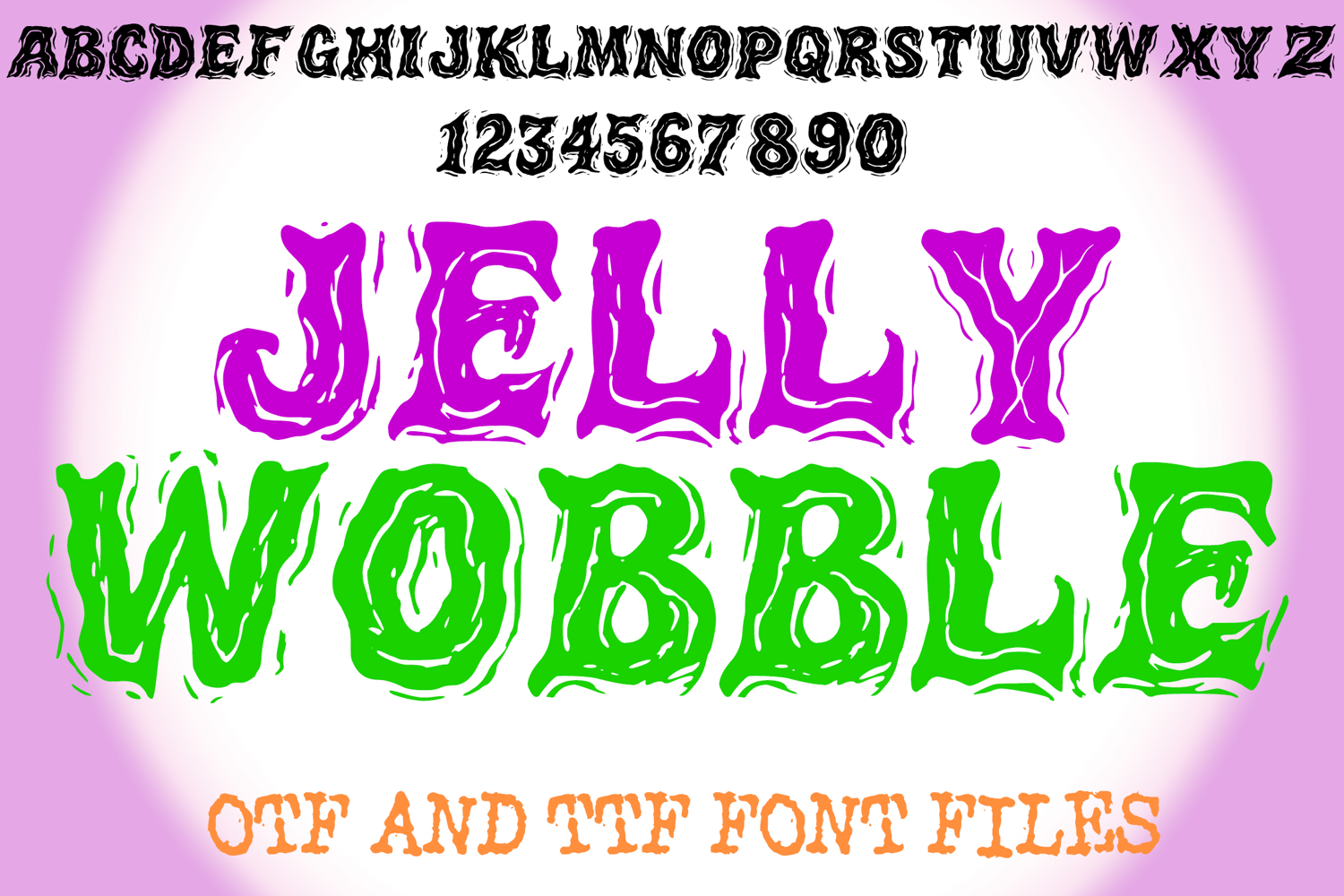
Jelly Wobble Lettering ABC Text Font Alphabet OTF Type Illustration by Squeeb Creative
Jelly Wobble Lettering ABC Text Font Alphabet OTF Type
Jelly Wobble Lettering ABC Text Font Alphabet OTF Type Illustration A fun wobbly style font where yo…